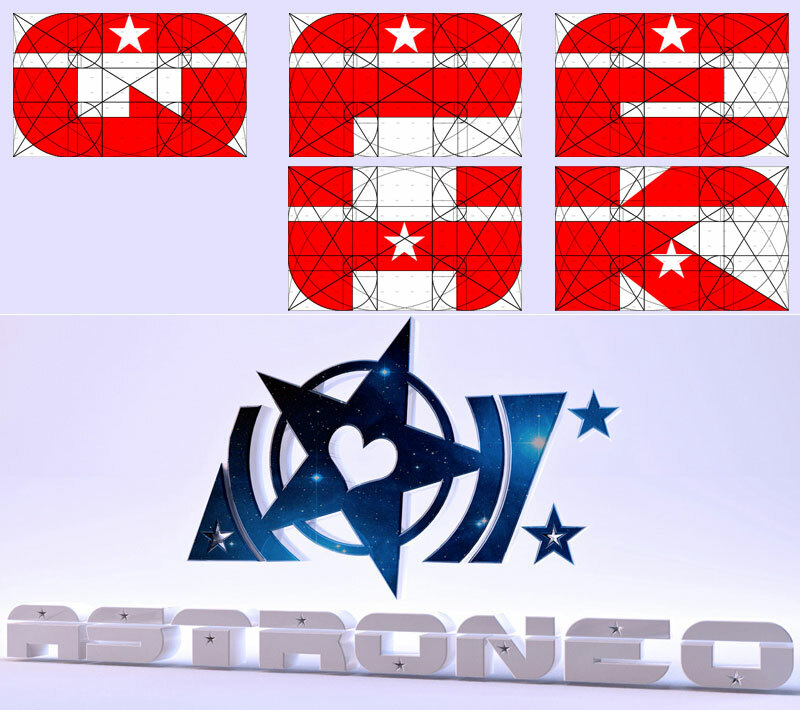
ASTRONEO
Astroneo Font - Typography
The first modern font based on Golden Ratio, Proportions used in Aesthetics, Arts, Mathematic, Paintures, Music, Industrial design and Nature.
Other names frequently used for the golden ratio are the golden section (Latin: sectio aurea) and golden mean.Other terms encountered include extreme and mean ratio, medial section, divine proportion, divine section (Latin: sectio divina), golden proportion, golden cut, golden number, and mean of Phidias.